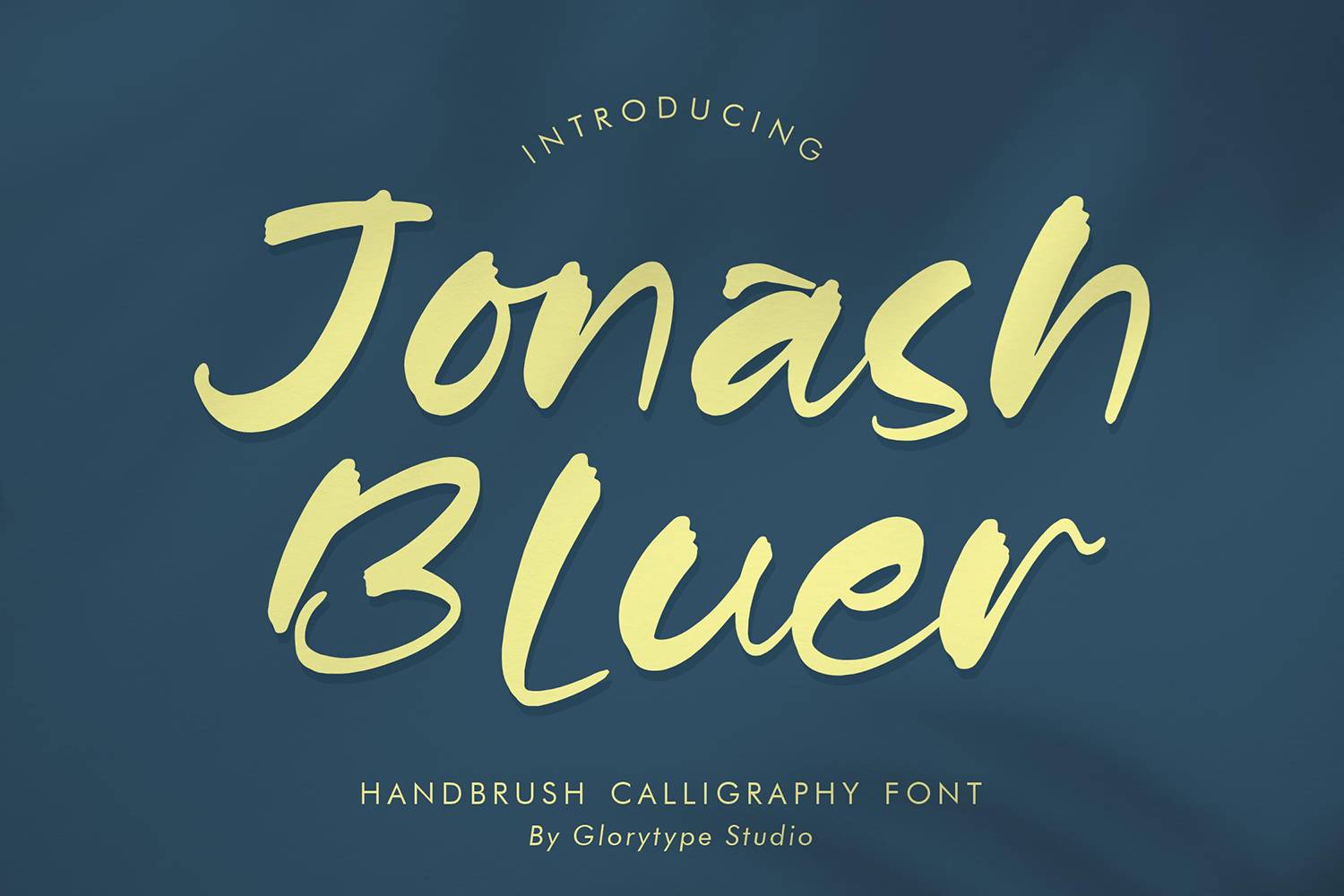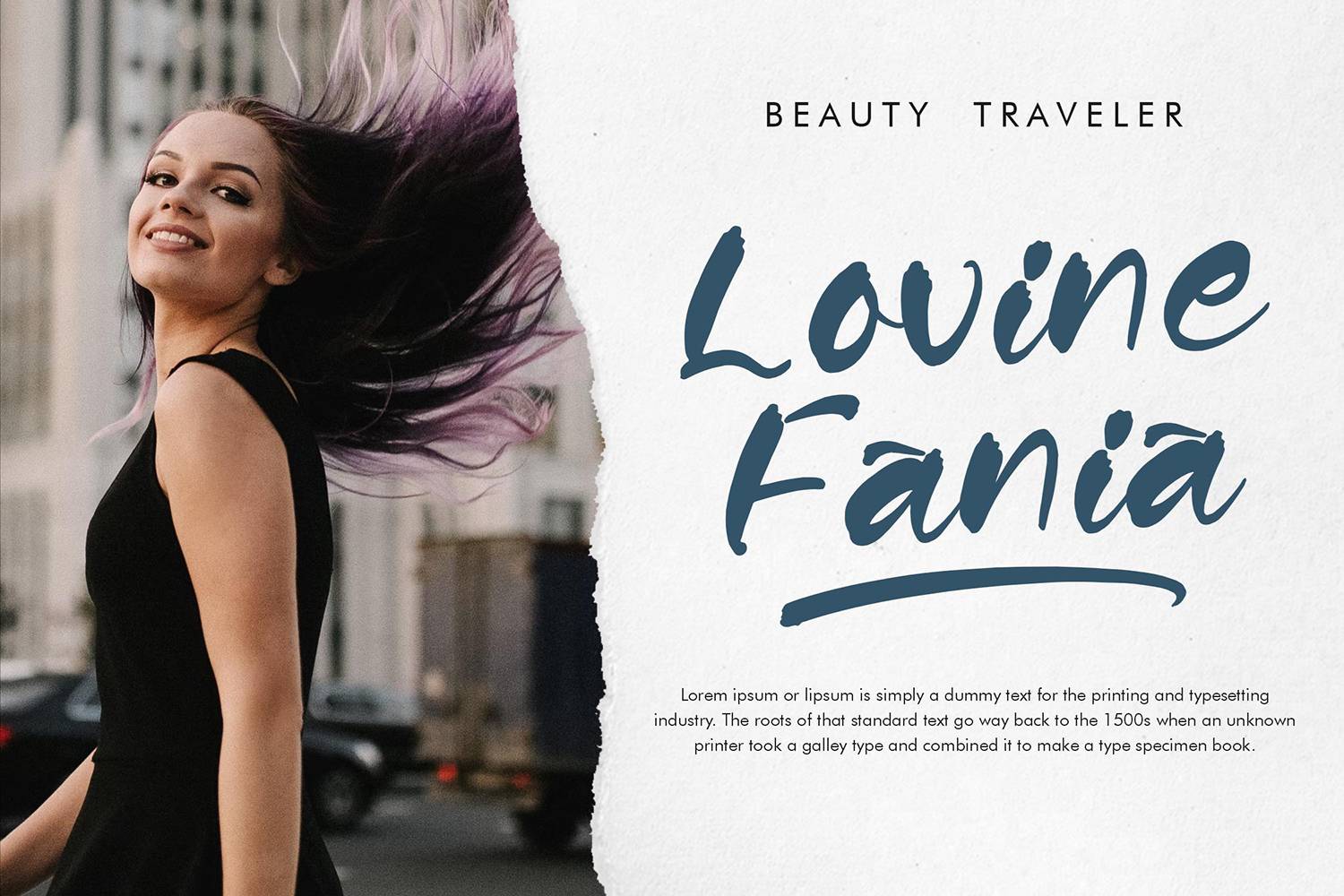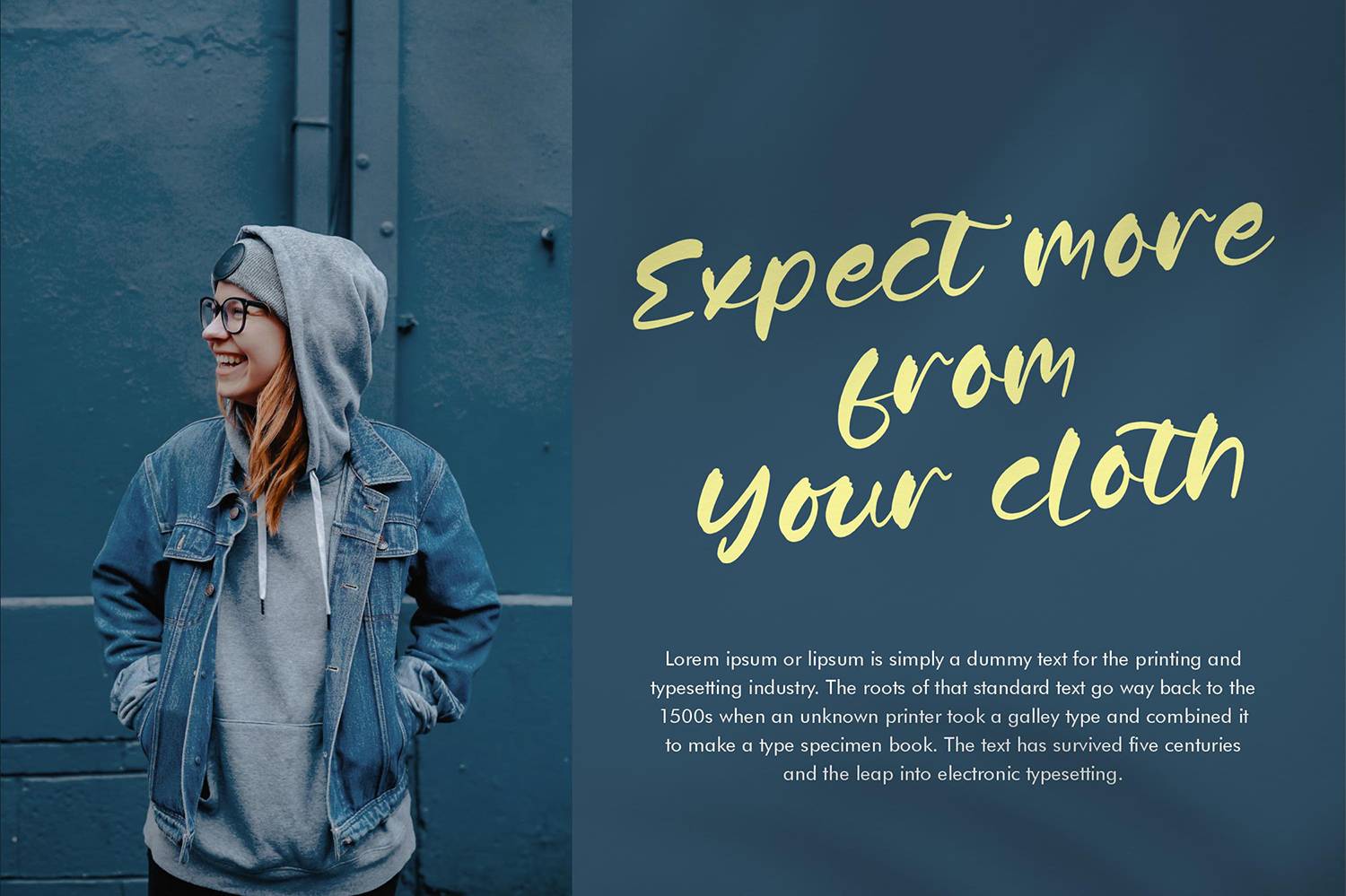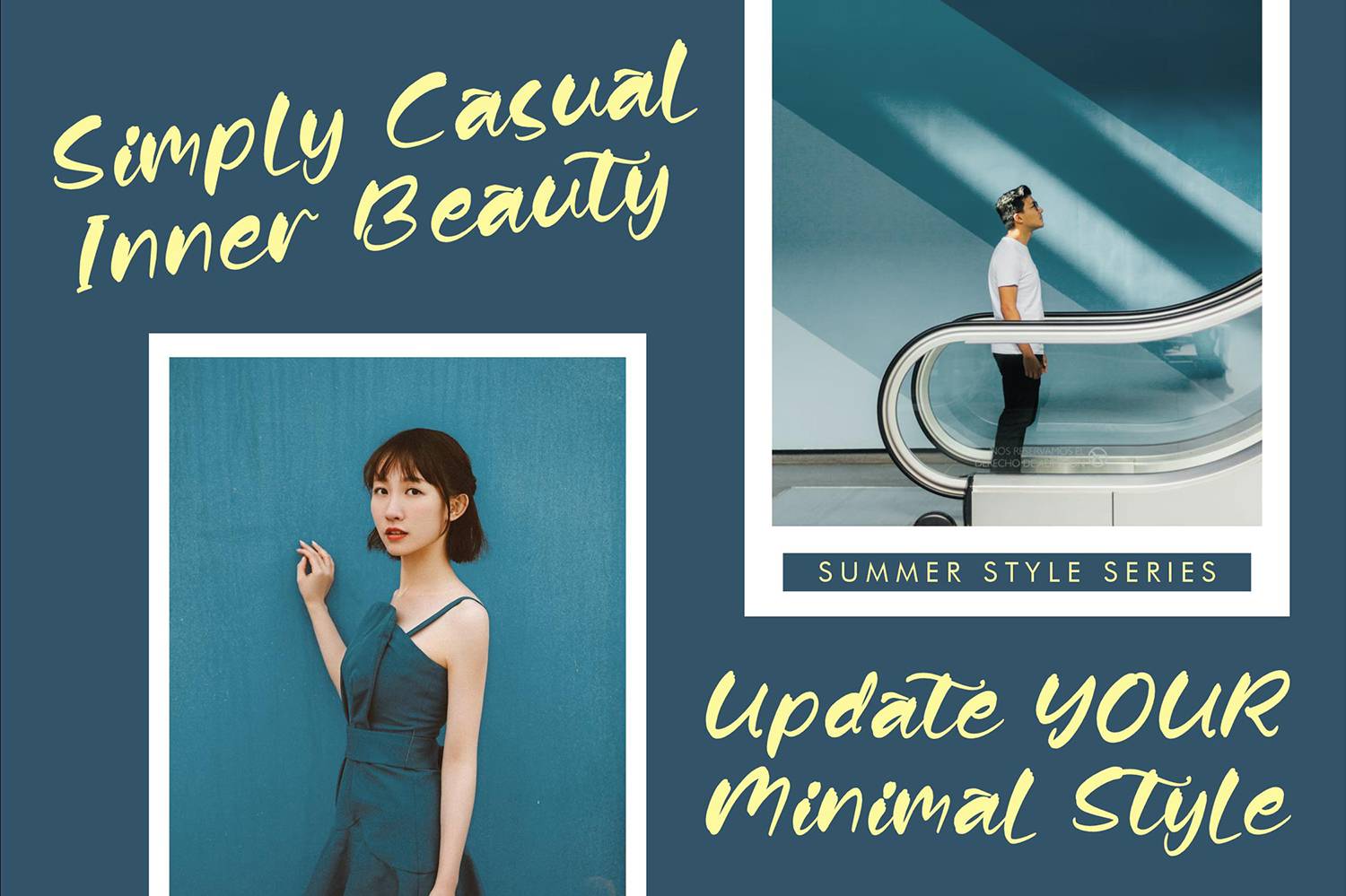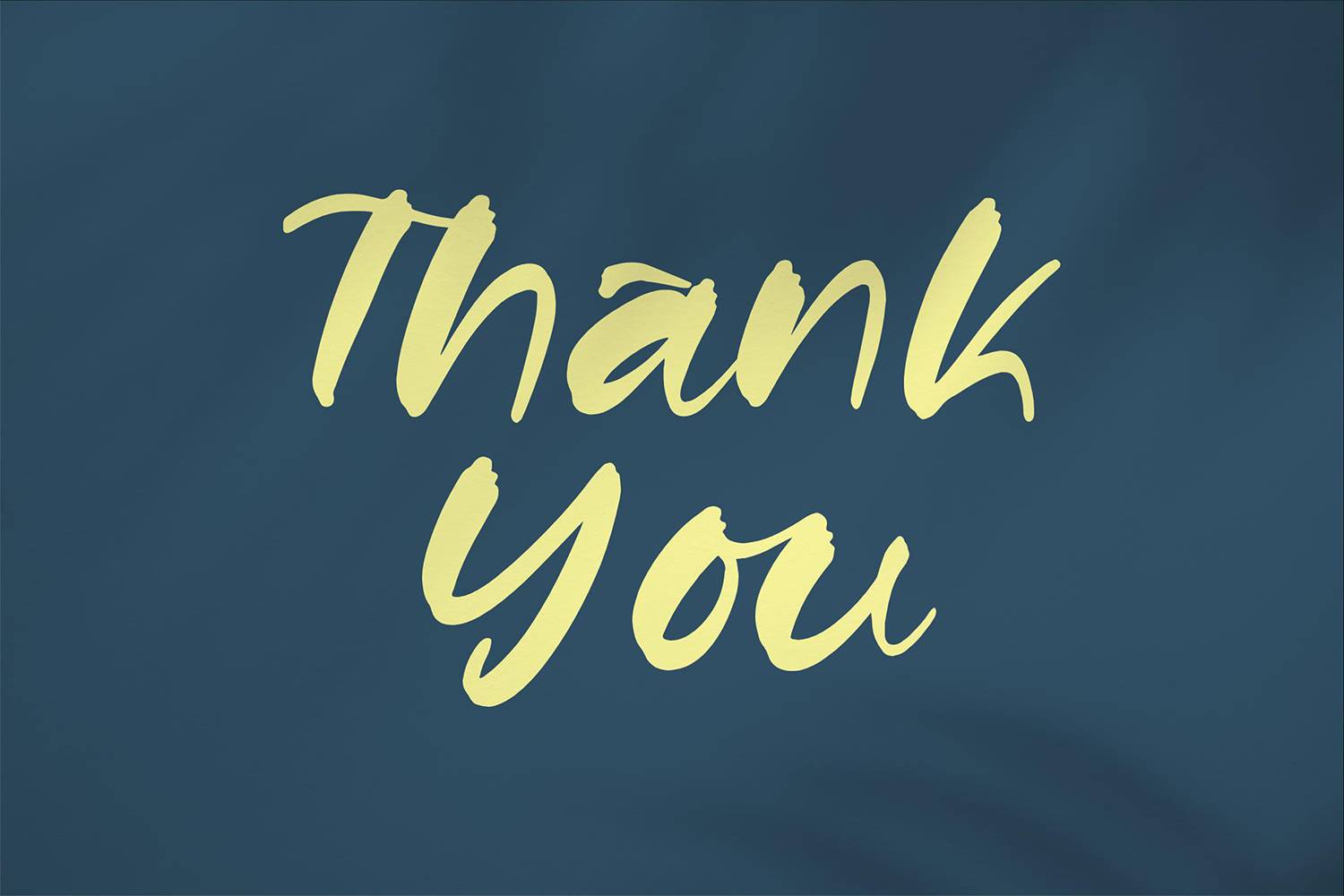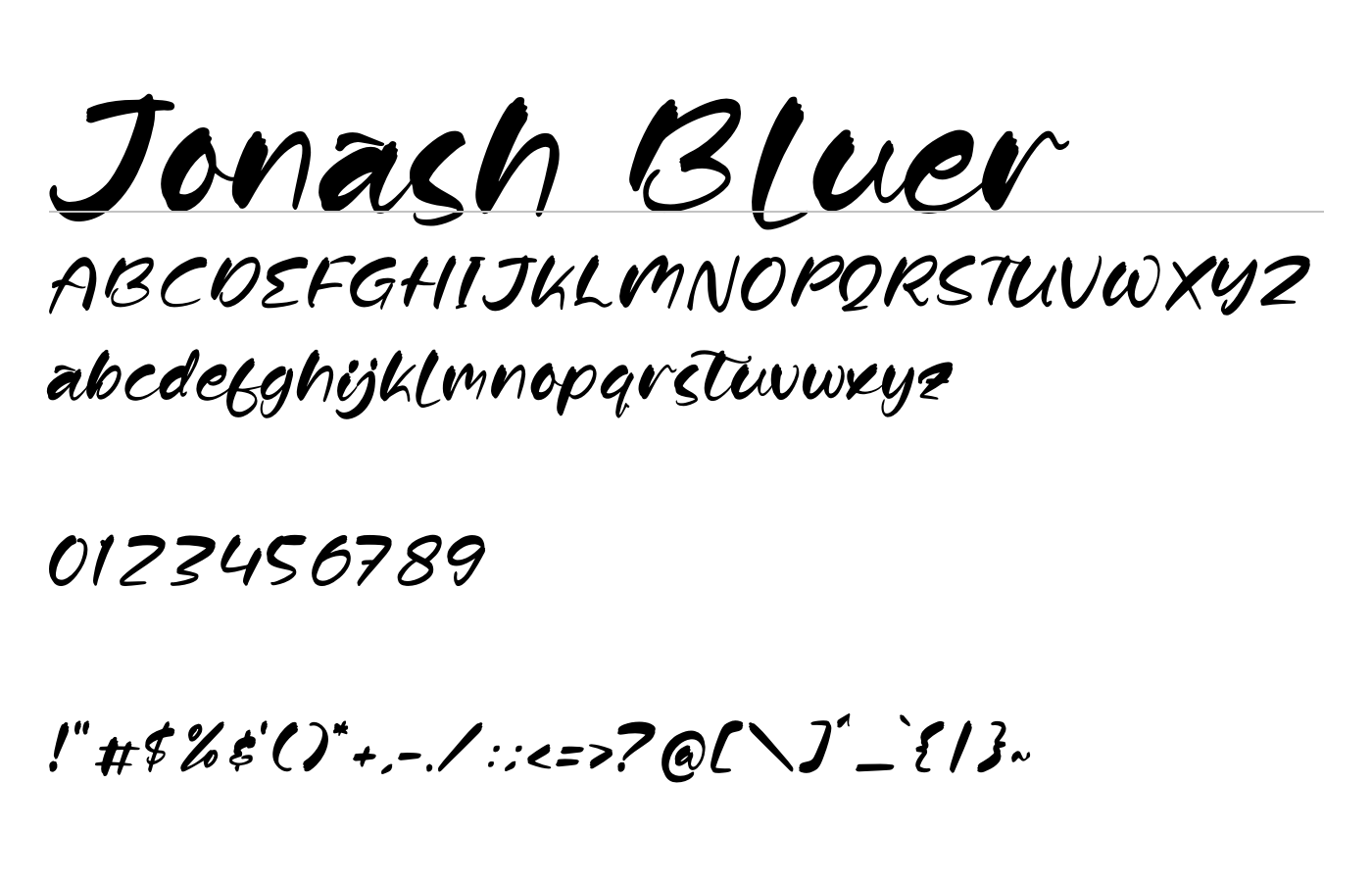
Jonash Bluer is a dynamic handwritten script font that features bold, fluid strokes with varying thickness, giving it an energetic and casual feel. Its slightly condensed letterforms and organic curves make it perfect for creative projects, branding, and headlines where a personal and expressive touch is desired. This font works well in contexts that seek to combine artistic flair with readability, such as logos, posters, and informal editorial designs.
Jonash Bluer Font
About Jonash Bluer Font